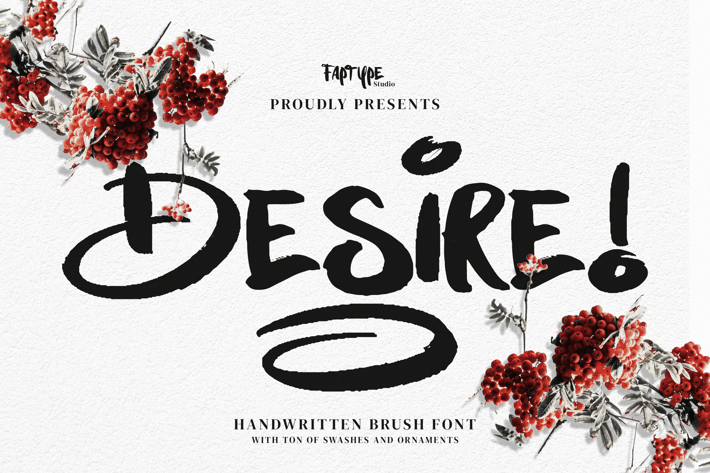
Desire | Handwritten Brush Font
Introducing "Desire," our latest handwritten brush font designed to elevate your creative projects with a touch of elegance and natural charm. This font is crafted with meticulous detail to capture the authenticity of a hand-painted brushstroke, making it the perfect choice for those seeking a blend of sophistication and a genuine, artistic feel.
"Desire" is more than just a font; it's a work of art. Each letter is meticulously crafted to emulate the nuanced strokes of a natural brush, providing a detailed and authentic feel. This attention to detail ensures that your text exudes a genuine handcrafted charm, adding a personal touch to your designs.
To enhance the expressive nature of your text, "Desire" comes adorned with a collection of exquisite ornaments and swashes. These decorative elements allow you to embellish your text, creating a unique and stylish flair. Whether you're designing invitations, posters, or branding materials, these additional features provide a versatile range of creative possibilities.
Communication knows no bounds, and neither does "Desire." With comprehensive multilanguage support, this font ensures that your message can resonate across diverse cultures and linguistic landscapes. Whether your audience speaks English, Spanish, French, or beyond, "Desire" stands as a versatile and inclusive choice for your design needs.
"Desire," our exquisite handwritten brush font, is the perfect choice for a myriad of creative applications. Here's how you can make the most of its unique features: Invitations and Stationery, Branding and Logos, Social Media Graphics, Packaging Design, Quotes and Typography Art, Greeting Cards Website, Headers and Banners, Apparel Design, Book Covers and Editorial Design and Artistic Projects.
"Desire" is not just a font; it's a versatile tool that empowers your creativity across a spectrum of design endeavors. With its natural brush feels, ornamental swashes, and multilanguage support, "Desire" is destined to enhance and enrich your creative projects.
Desire features:
- A full set of upper & lowercase characters
- Numbers & punctuation
- Multilingual language support
- PUA Encoded Characters
- Dozens of Swashes
- OpenType Features
- Up to +302 Total Glyphs
- Up to 68 Total Ornament addons